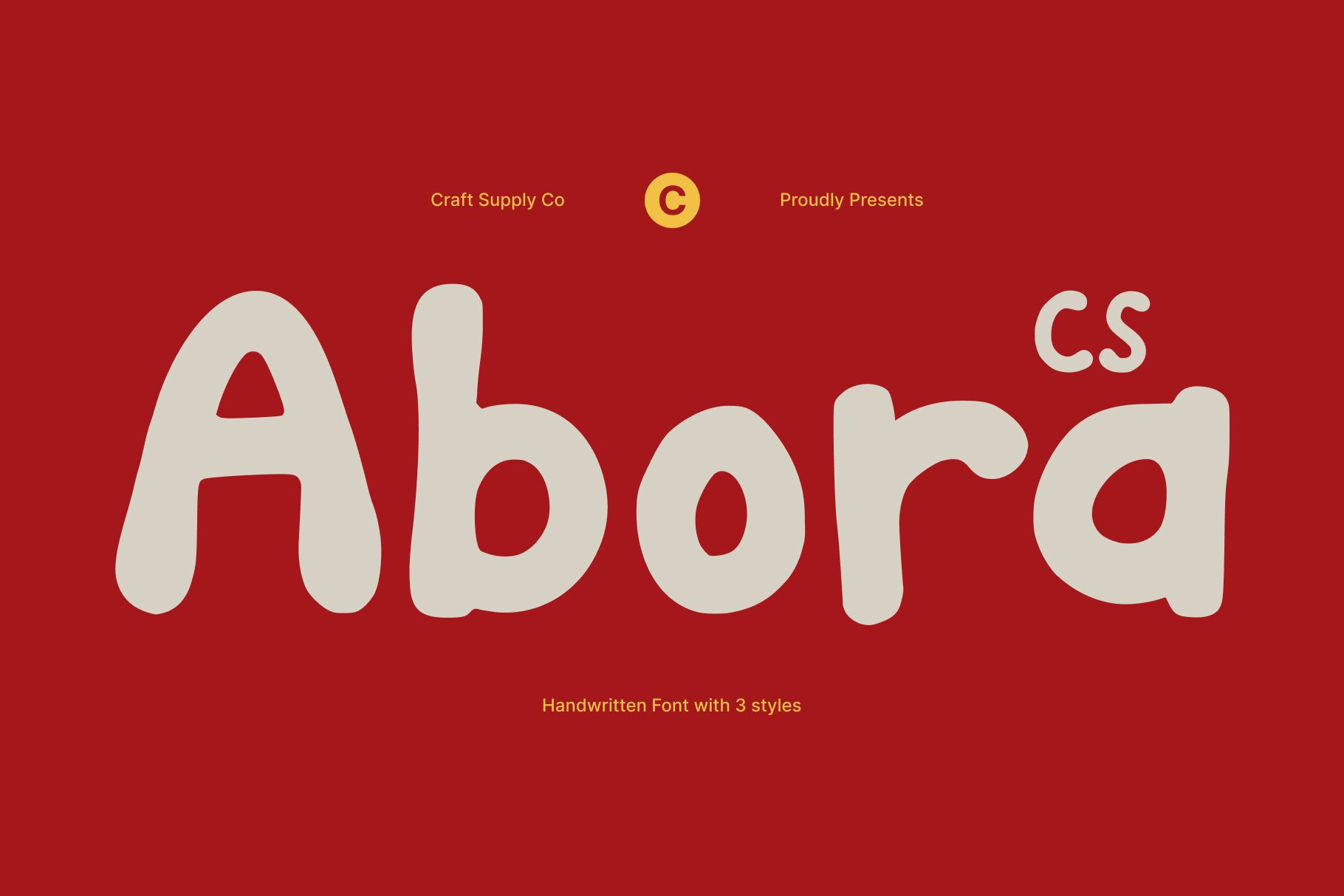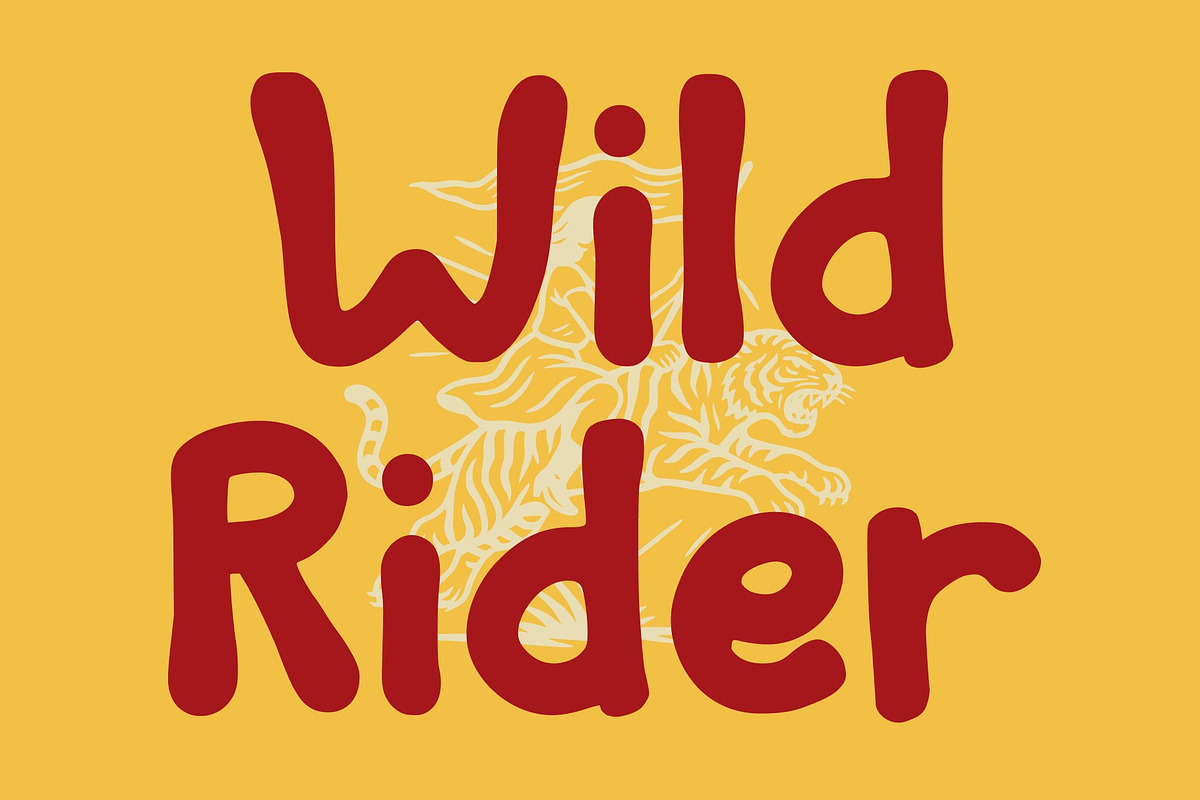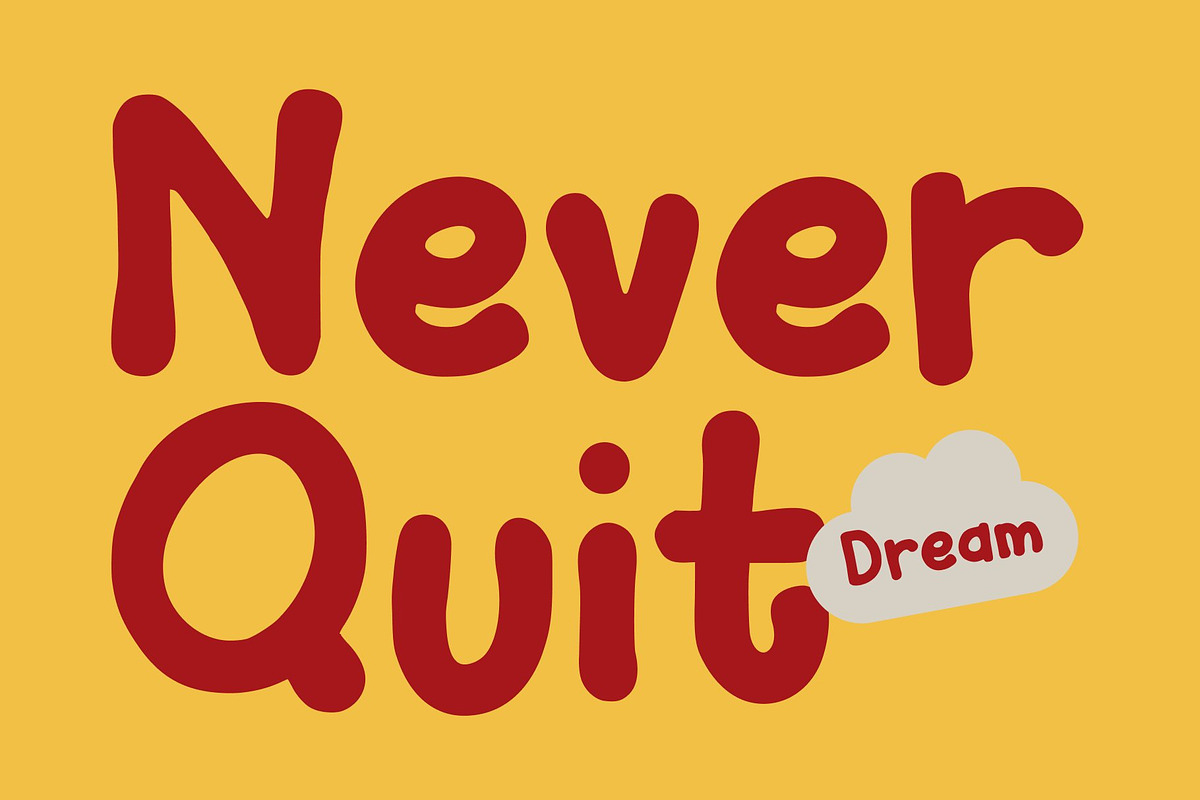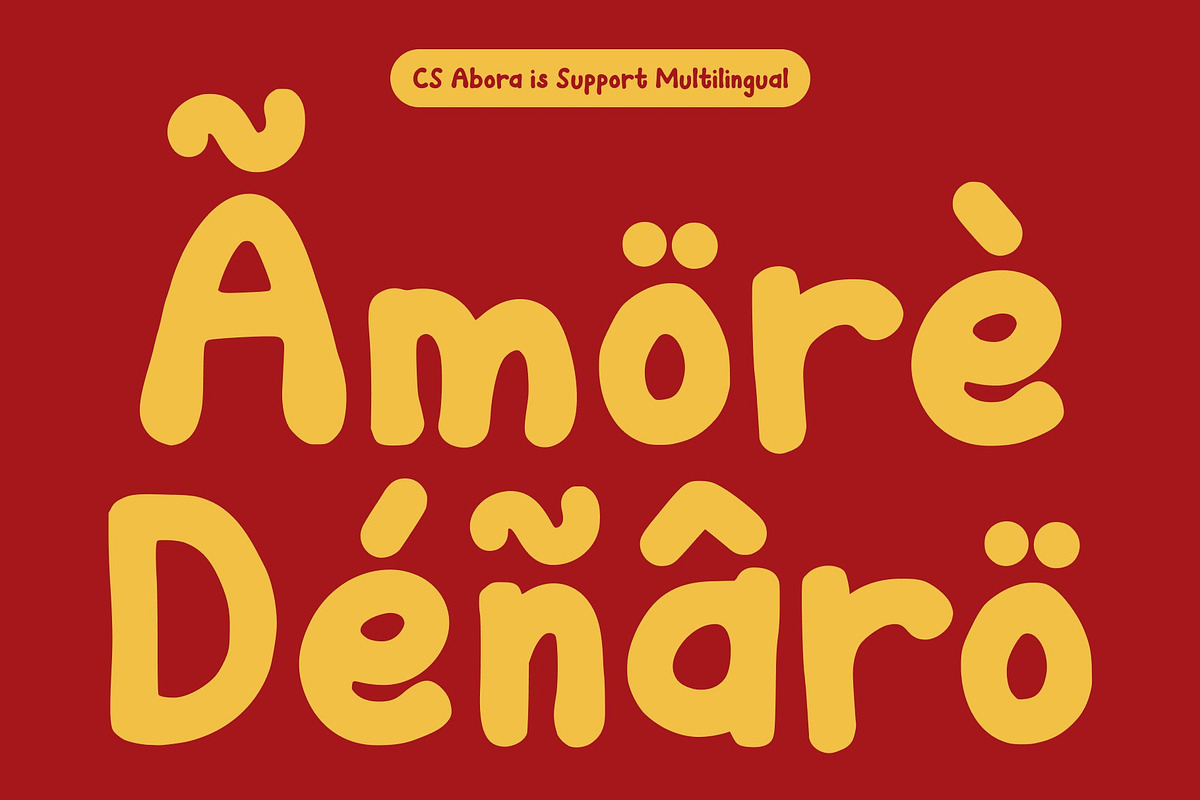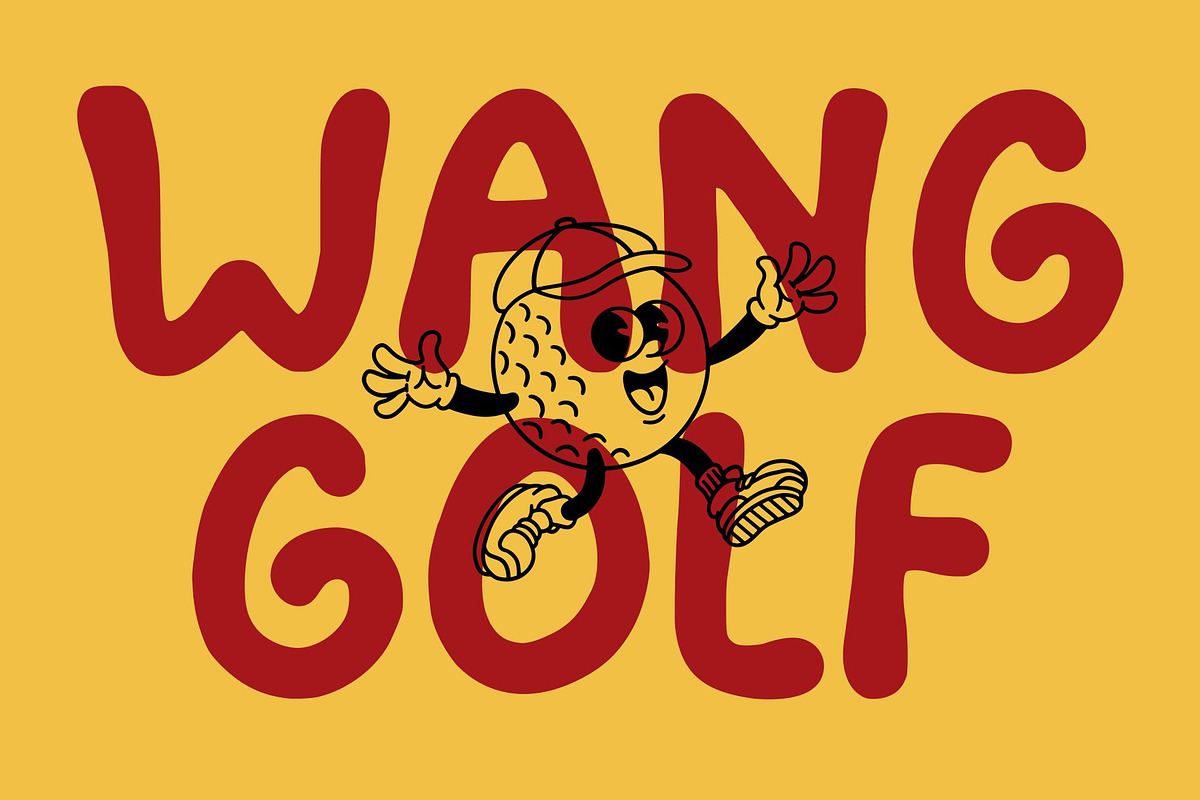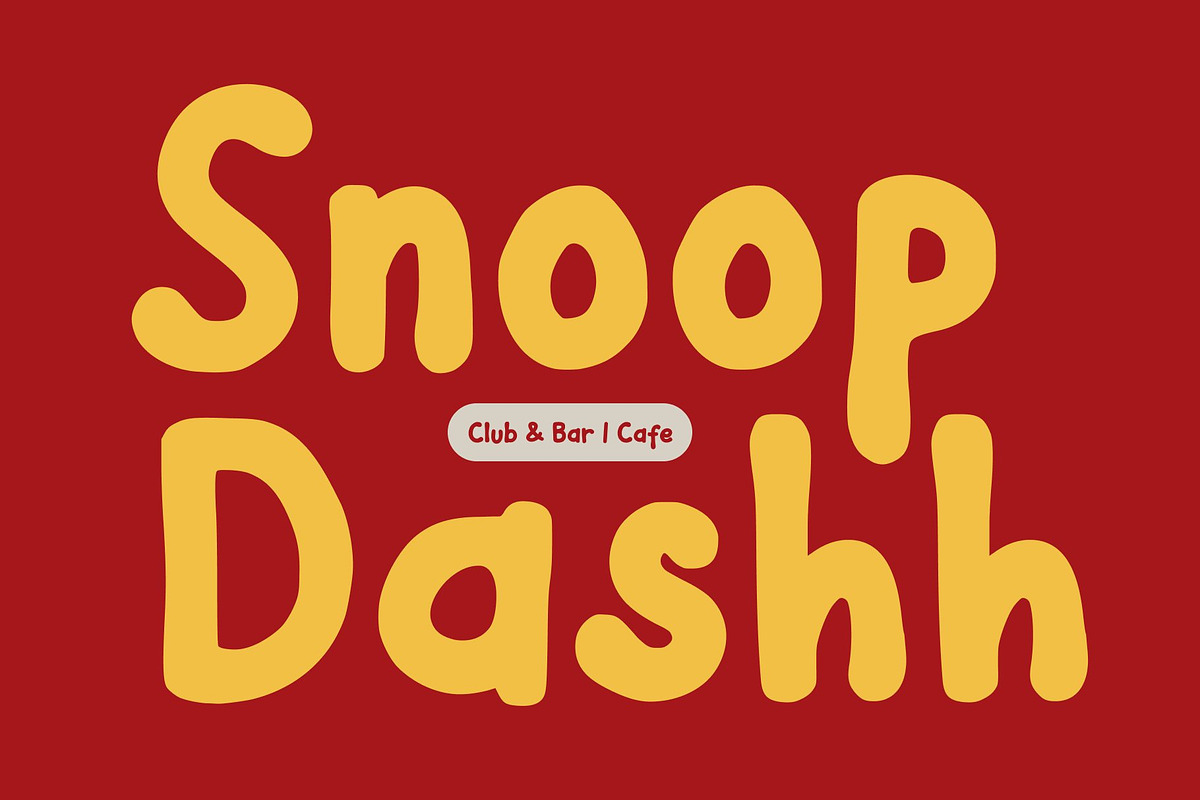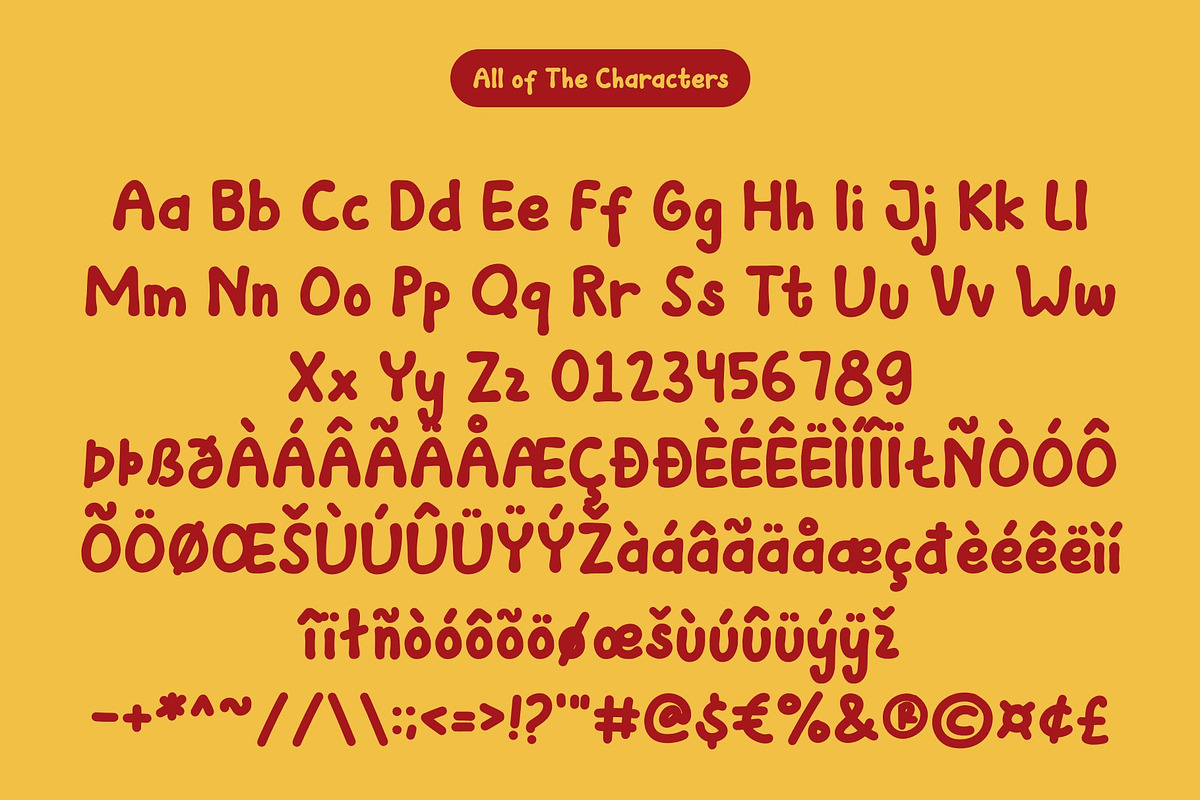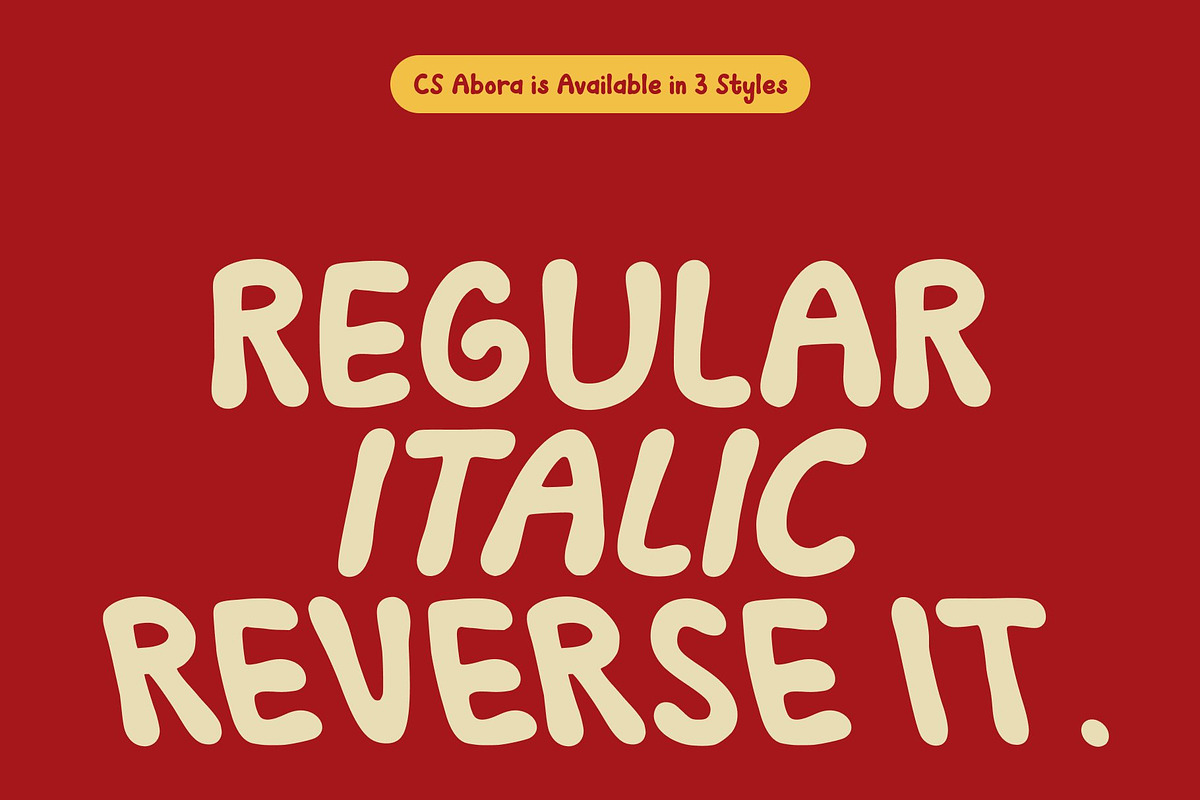
CS Abora – Kids Font
CS Abora – Playful Energy with a Cheerful Spirit
Cute and Friendly Kids Font This is a playful display font designed to capture the joy and imagination of childhood. With its rounded shapes and soft curves, this font exudes warmth and friendliness, making it perfect for designs that aim to feel approachable, lively, and full of personality.
Rounded Shapes for a Soft, Inviting Feel Every letter in this font is crafted with smooth edges and balanced proportions, creating a sense of comfort and happiness. This design approach enhances readability while maintaining a fun, whimsical character, ideal for children’s books, games, and educational materials.
Perfect for Playful and Creative Projects From party invitations and playful branding to toy packaging and storybook covers, this font brings a touch of delight to every project. Its charming style helps your designs connect instantly with a young or family-oriented audience.
Joyful Typography for All Ages This font celebrates creativity, color, and positivity through its cheerful letterforms. Whether used in digital or print designs, it delivers a lighthearted and welcoming impression that makes every message shine with fun and friendliness.
- CS Abora Regular
- CS Abora Italic
- CS Abora Reverse Italic